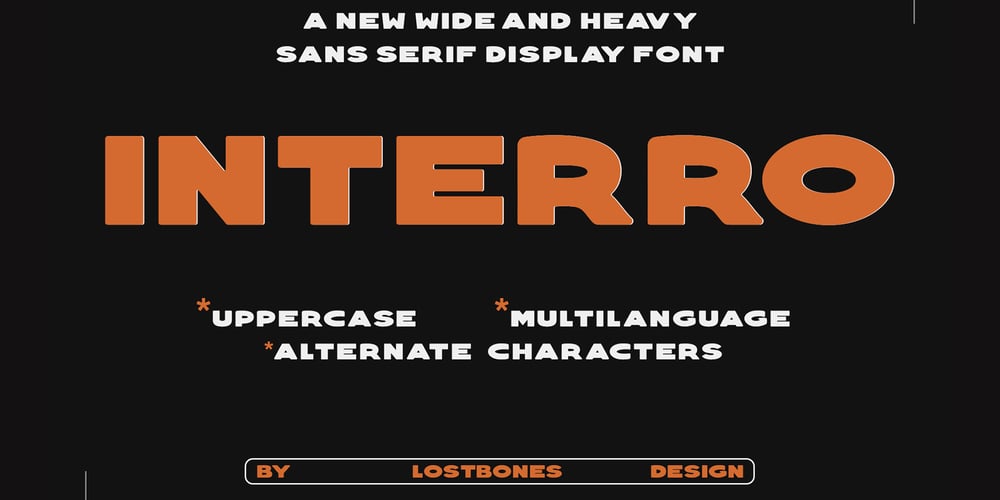
Interro Font Family was designed by Ashton Watson Jones and published by Lostbones Design. Interro contains 1 styles and family package options. Interro is a wide and heavy sans serif display font full of personality and built for boldness.Perfect for maximizing your logos, headlines, branding, posters, and more—this modern, all-caps font features alternate characters, that add stylistic variety to your designs! With multi-language support, Interro is versatile and accessible for global use.